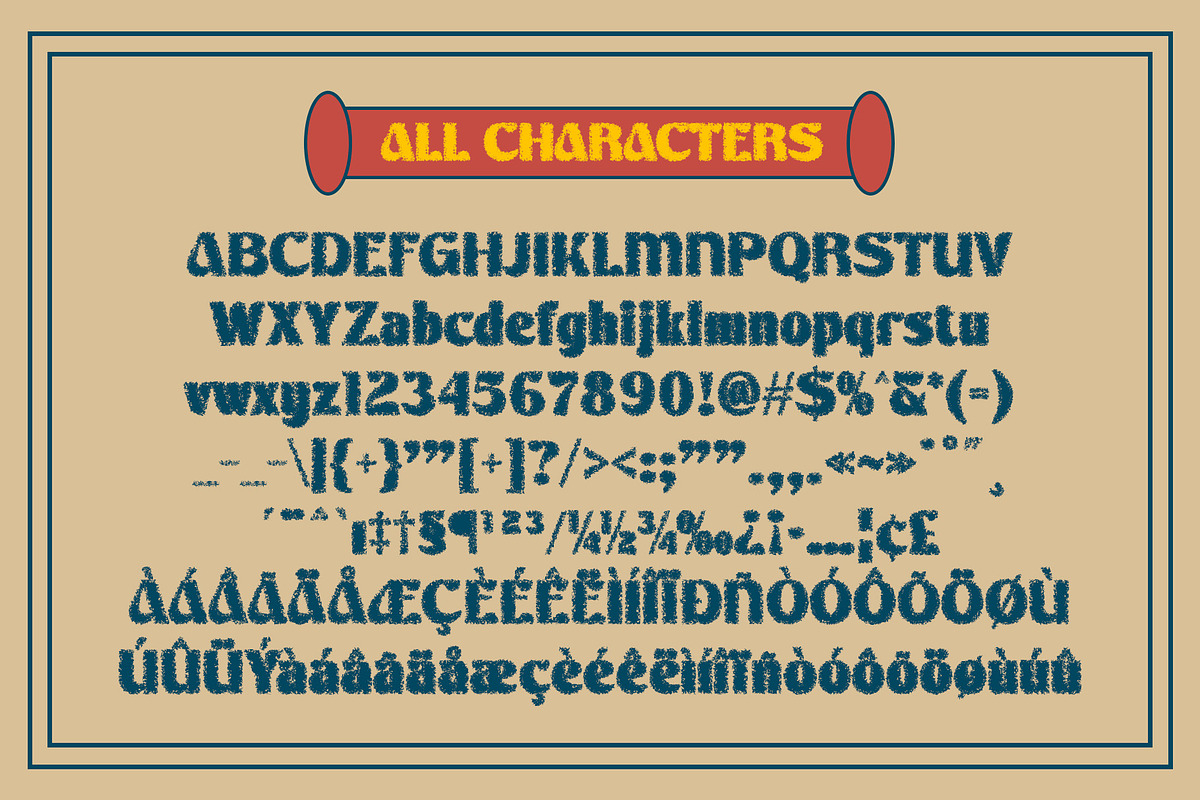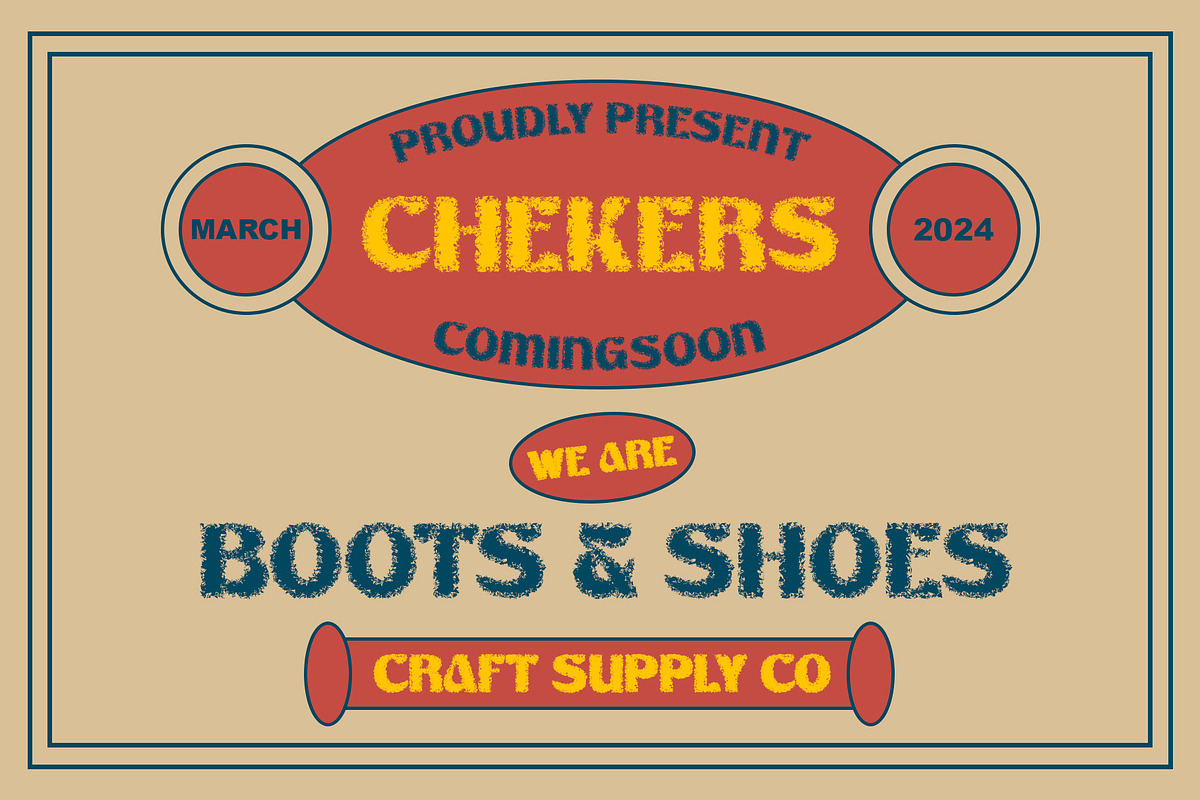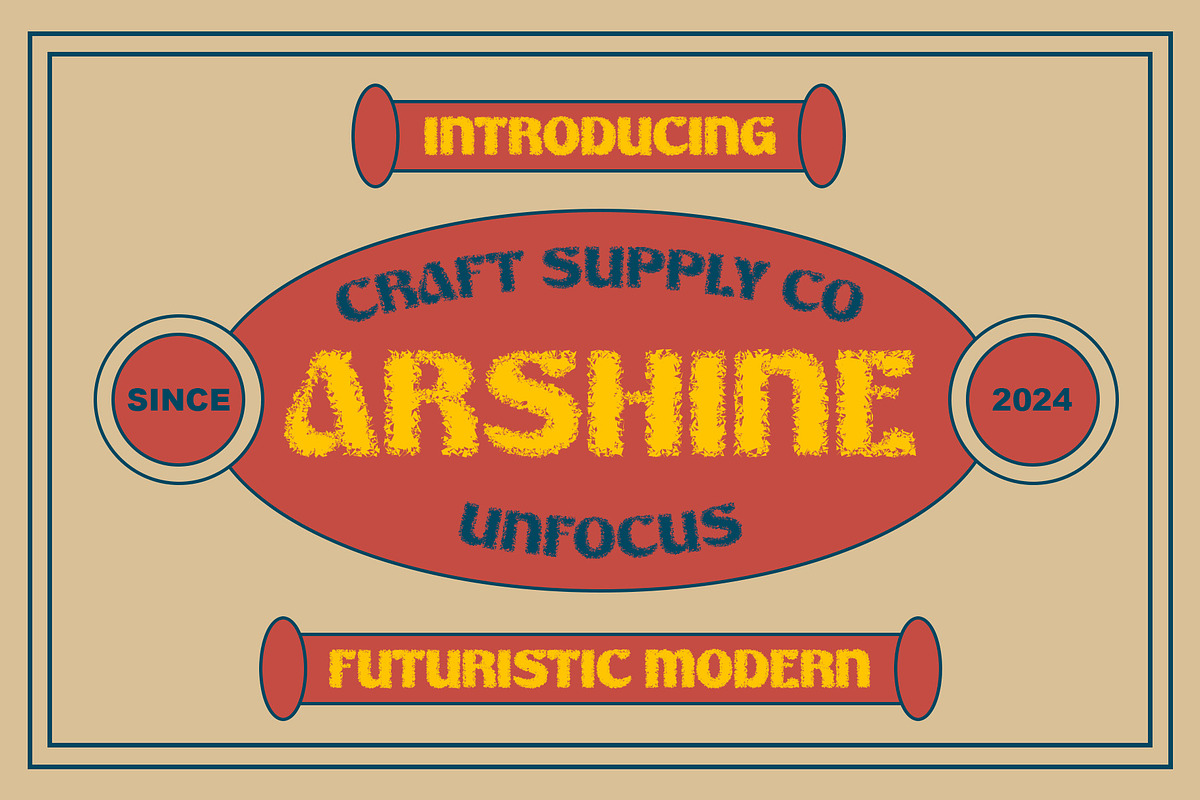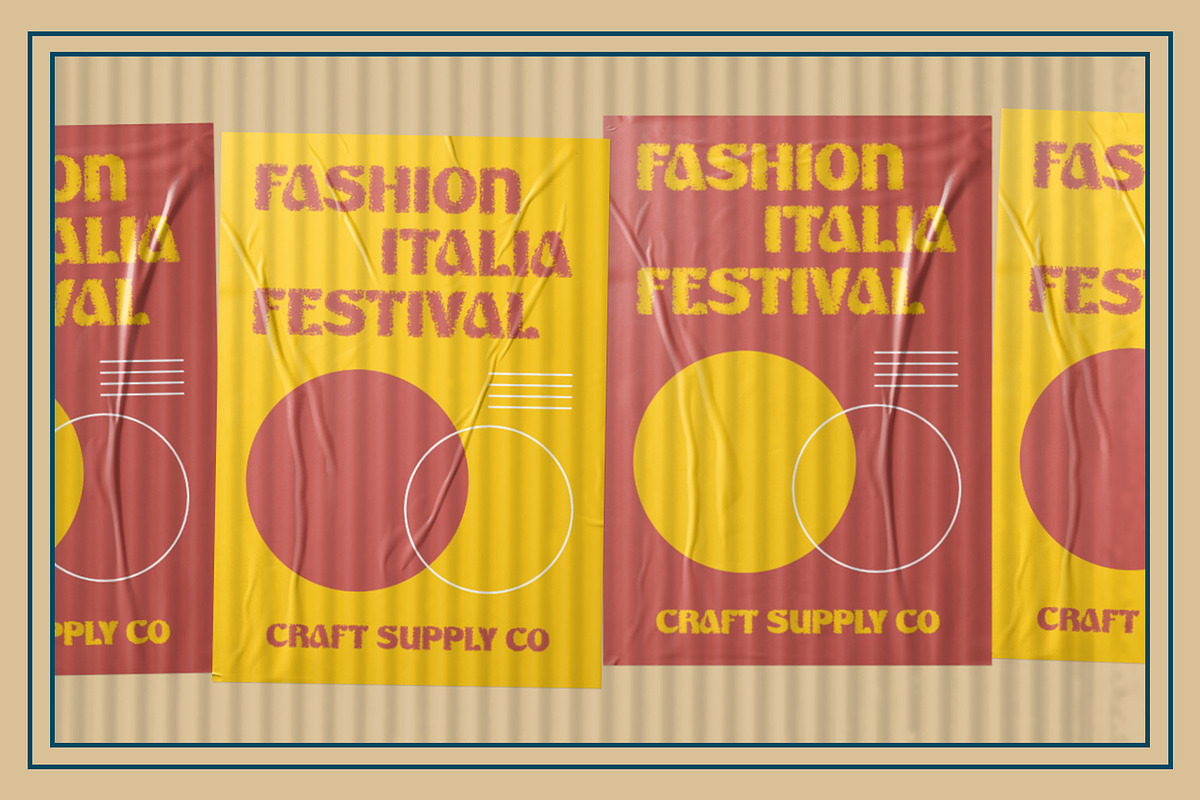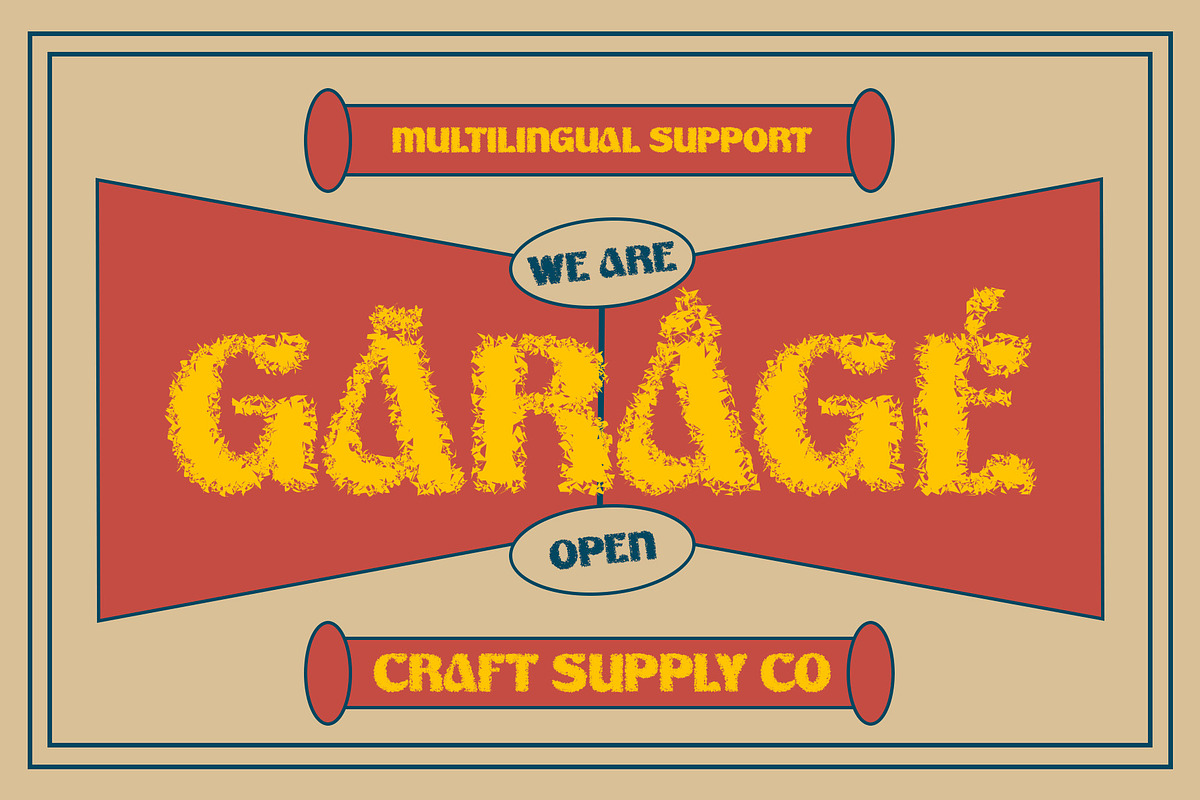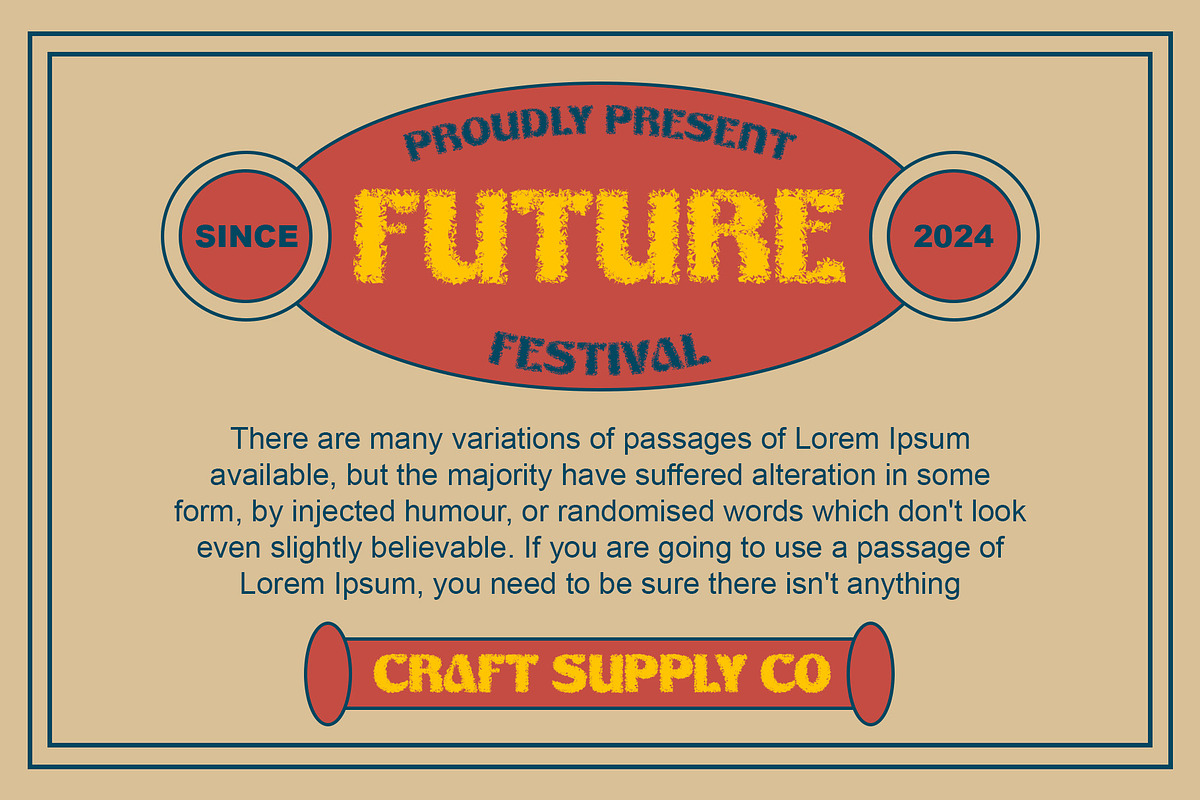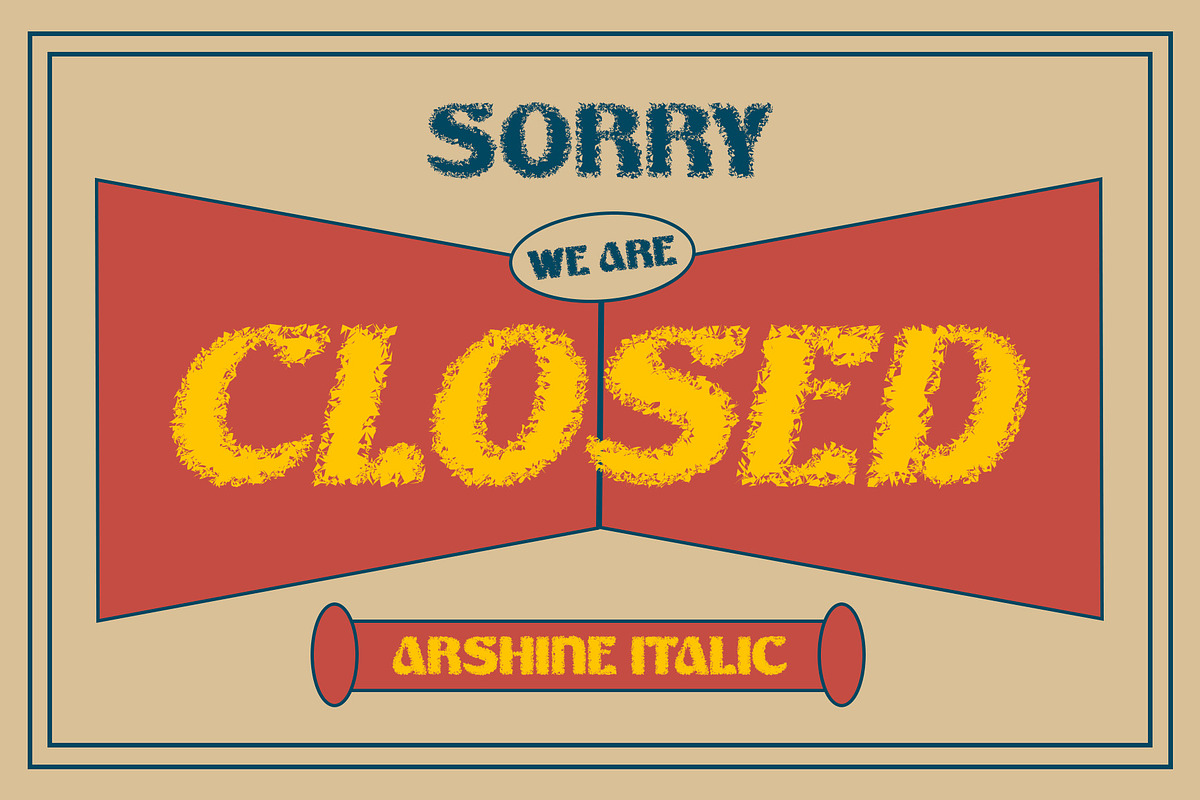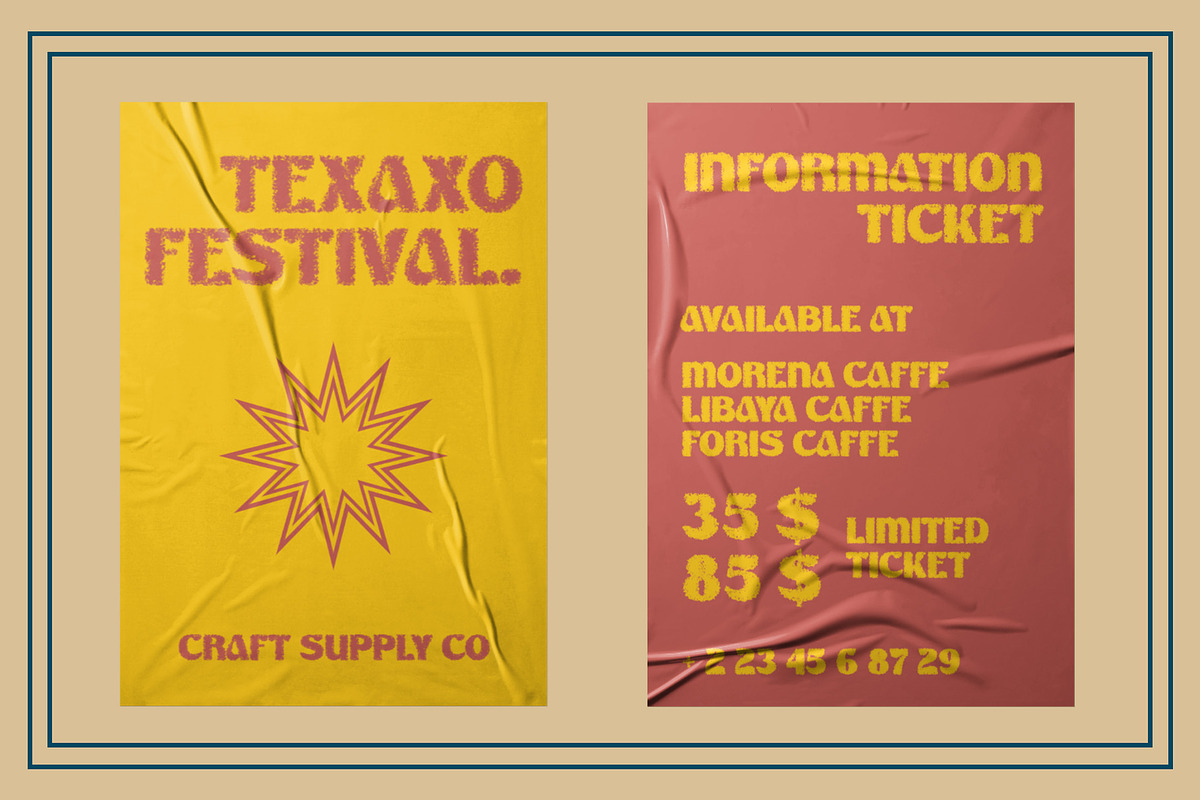
Arshine Unfocus
Arshine Unfocus: Embracing Funky Vibes
Funky Display Design Arshine Unfocus boasts a funky display design that exudes vibrant energy and playful vibes. Its unique character shapes and unconventional style make it stand out from the crowd.
Unfocus Effect With its unfocus effect, the font takes on a dynamic and captivating appearance. Each letter appears slightly blurred, adding an intriguing visual element that draws the eye.
Ideal for Display This font is tailor-made for display purposes, making it the perfect choice for headlines, banners, and attention-grabbing text. Its funky nuance and unfocus effect ensure it commands attention wherever it’s used.
Versatile Application Despite its playful nature, This font is versatile in its application. From posters and album covers to advertisements and social media graphics, it adds a touch of fun and excitement to any design project.
Where Funkiness Meets Unfocused Charm This font brings a unique blend of funkiness and dynamic flair to the table, making it an ideal choice for designers looking to inject personality and vibrancy into their creations. With its unfocus effect and playful design, Arshine Unfocus is sure to leave a lasting impression on viewers.